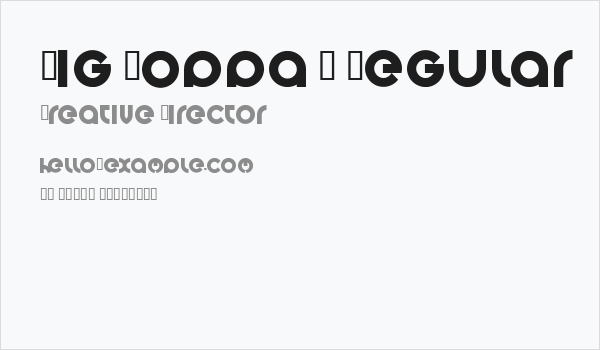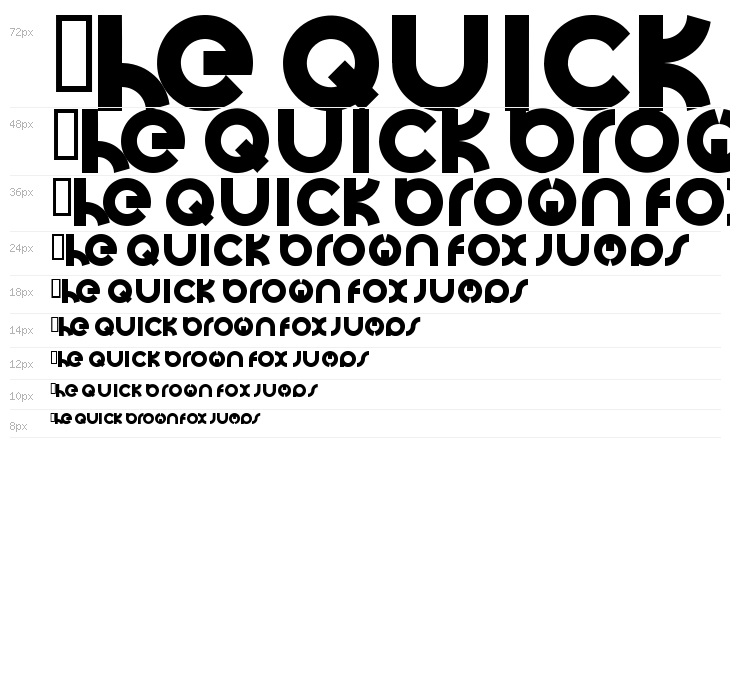
Big Poppa E Regular Font
Big Poppa E Regular Description
This font features a bold, geometric style with a modern flair. The characters are constructed with thick, even strokes and rounded edges, giving it a playful yet robust appearance. The lowercase letters exhibit a unique design with some characters incorporating unexpected angles and curves, adding a distinctive touch. The font's overall aesthetic is clean and contemporary, making it suitable for a variety of creative applications. Its boldness ensures high visibility and impact, making it ideal for attention-grabbing designs.
| Proposed Projects | Ideal for branding, posters, headlines, and any design requiring a strong visual impact. |